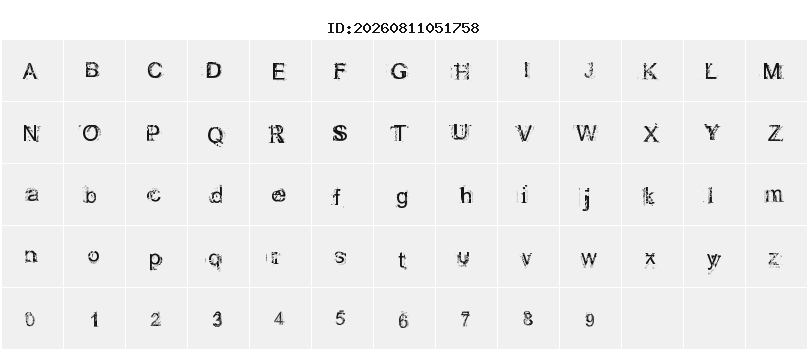
Rough linen Preview
• Font Name: Rough linen
• Full Font Name: Rough linen
About Rough linen.ttf
Rough linen.ttf is a modern, elegant sans-serif font designed for ultimate readability and visual harmony. Perfect for branding, headlines, web design, and print materials.